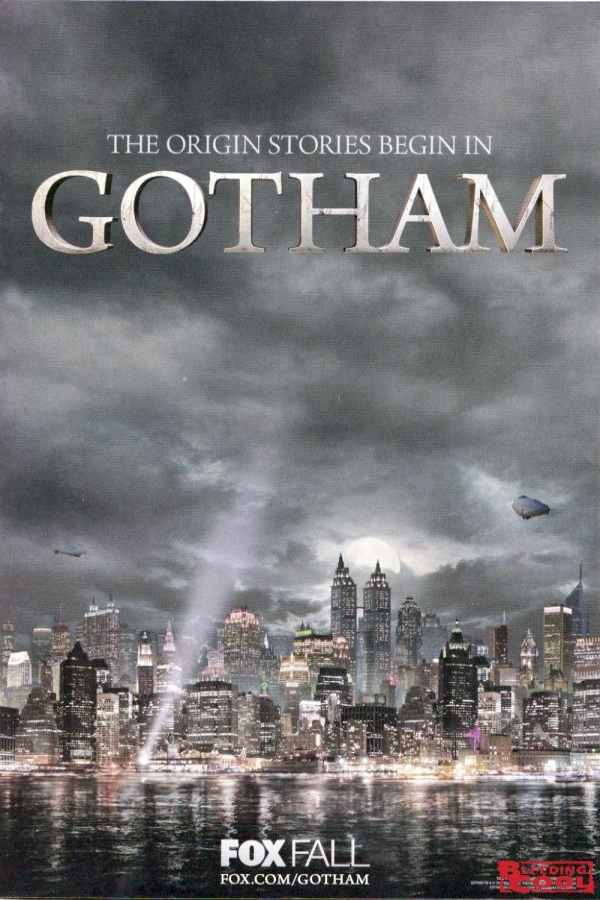
Gotham Font
CrimeGotham is a crime drama series that explores the origin stories of iconic Batman characters, including the rise of young Bruce Wayne and the emergence of villains such as the Joker and Catwoman.
The Gotham TV show logo is likely designed using the Arno regular font Created by Robert Slimbach. Arno is a serif typeface that pays homage to the 15th and 16th century humanistic typefaces. You can find more information on the font here.